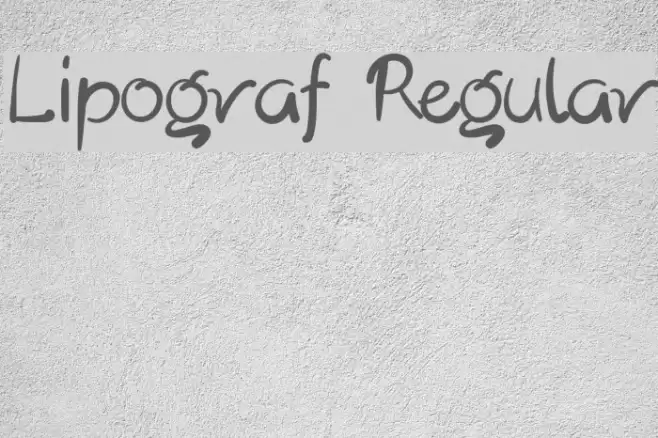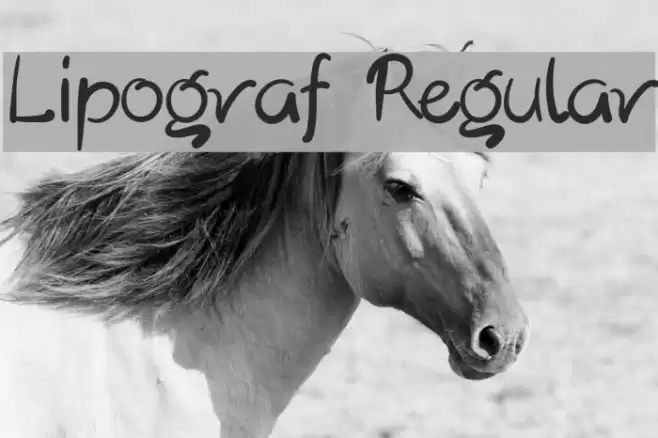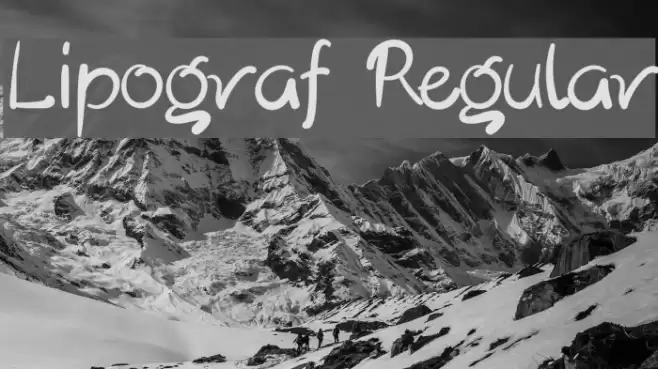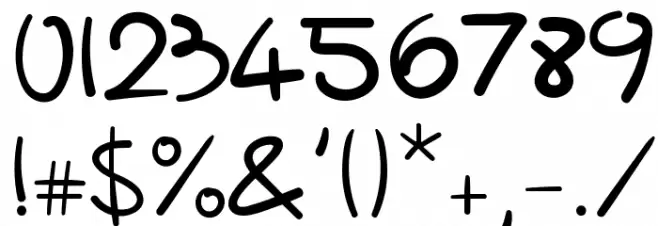
Lipograf Regular Font
Lipograf Regular Description
This font features a playful and casual handwritten style, characterized by its smooth, flowing curves and slightly irregular shapes. The letters are bold and rounded, giving a friendly and approachable appearance. The uppercase and lowercase letters maintain a consistent style, with a slight slant that adds to the informal feel. The numerals are equally rounded and maintain the same playful aesthetic. Special characters are integrated seamlessly, ensuring versatility in various design contexts. The overall look is dynamic and energetic, making it suitable for projects that require a personal touch.
A playful, bold handwritten font with smooth, flowing curves from Uncategorized fonts.
- Proposed Projects: Ideal for greeting cards, children's books, casual branding, and social media graphics.
- Overall Style: Casual
- Use Case: Logos, Headlines, Informal Text